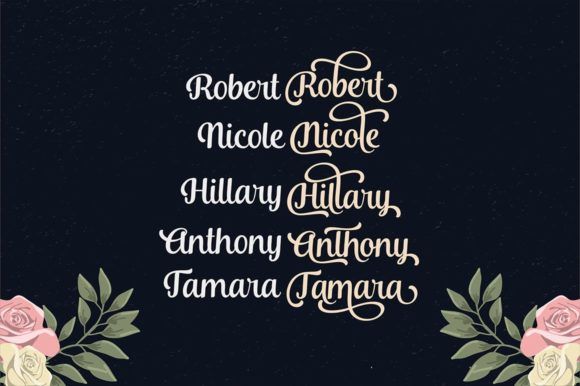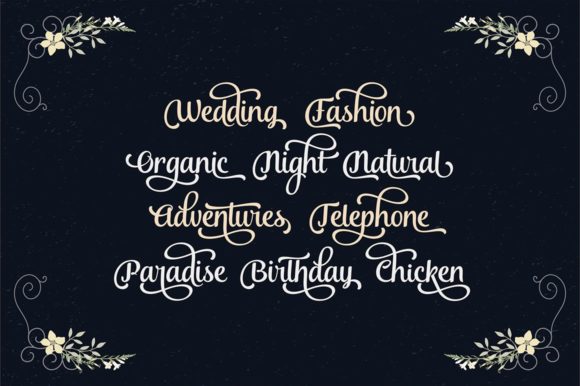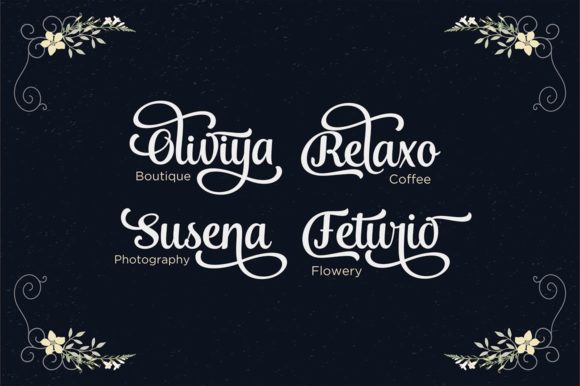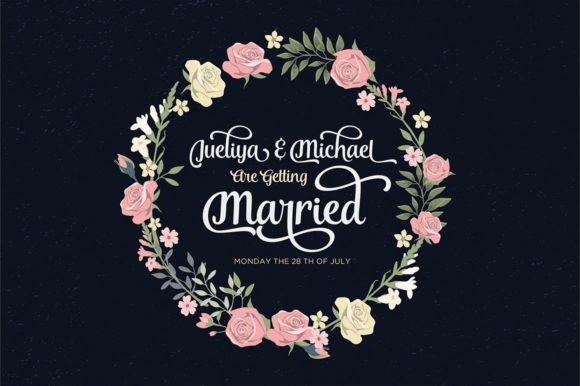
Andalusia Script Font
About Andalusia Script Font
Andalusia is a romantic and delicate typeface. It can be used for various purposes, such as logos, wedding invitations, t-shirts, letterhead, news, posters, badges and so much more. This font is PUA encoded which means you can access all of the glyphs and swashes with ease!